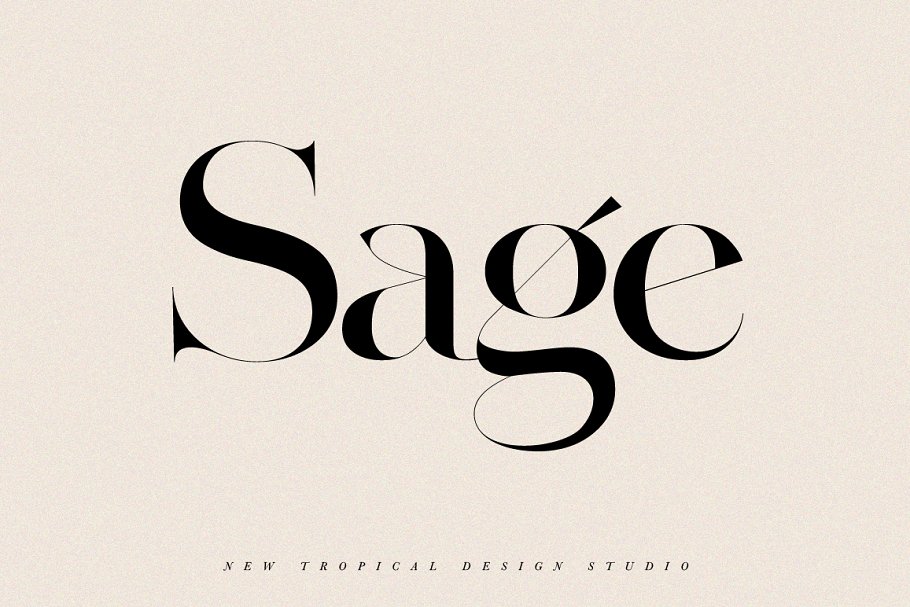
Looking for a modern serif typeface that exudes style and elegance? Look no further than SAGE, the latest creation from New Tropical Design Studio. With its high contrast version of the famous Didot look, SAGE is the perfect font for fashion-forward projects that require a touch of sophistication.
With over 100 glyphs and multilingual letters included, SAGE is a versatile font that can be used for a wide range of projects. Whether you're creating a logo, masthead, or pull quote, this font is sure to impress.
One of the best things about SAGE is its versatility. It pairs beautifully with a minimal sans serif or light script font, making it perfect for a variety of design projects. And with full upper and lower case, as well as OTF, TTF, WOFF, WOFF2, and SVG font files included, SAGE is easy to use and customize to your liking.
But what really sets SAGE apart is its nostalgic feel. This font is both modern and classic, making it perfect for designs that require a touch of both. It's the perfect font for creating designs that are both timeless and trendy.